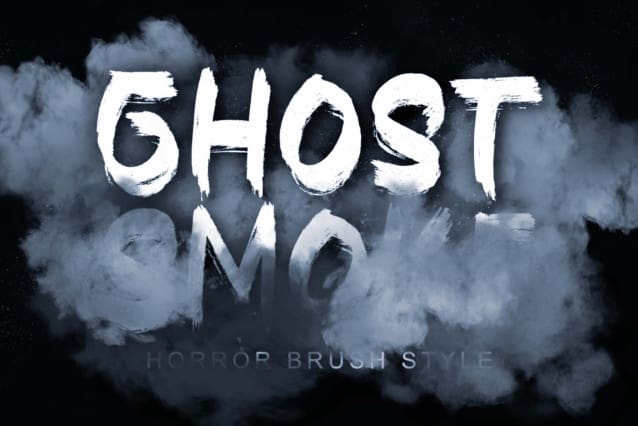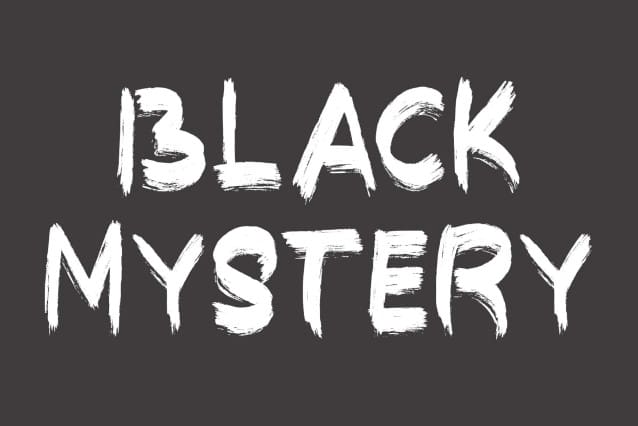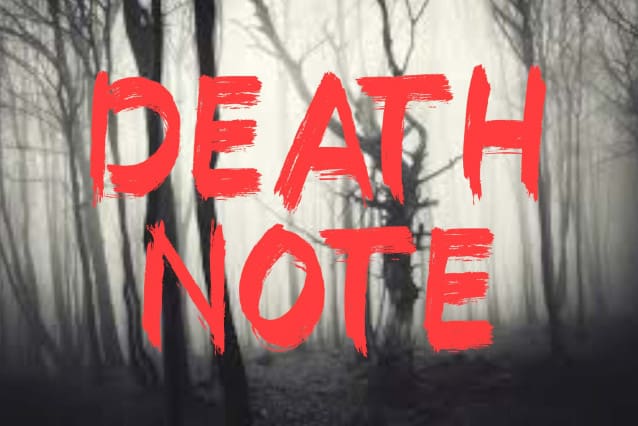
Ghost Smoke Font
Ghost Smoke Font is an elegant and unique horror font. This font is equipped with uppercase, lowercase, numerals, punctuations and multilingual support. Very suitable for Halloween, horror films, Christmas, devil, spooky fonts, paint fonts, branding, stickers, posters, prints, banners and others.